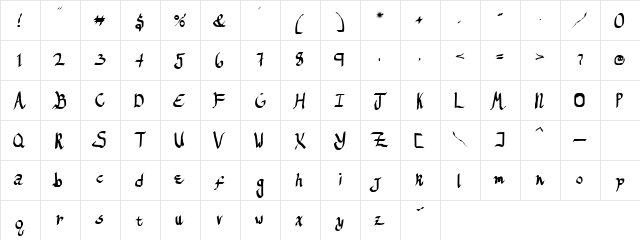
ReGifter Bold
Design Context for ReGifter Typeface
ReGifter is a composed and adaptable typeface that performs quietly and consistently across a wide range of design contexts. Its bold stroke weight gives it real presence on the page.